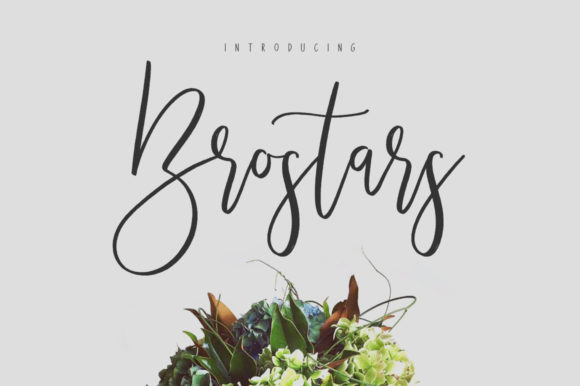
The Ultimate Design Game-Changer: Brostars Font
I’ll never forget the moment I stumbled upon the perfect font for a client’s branding project. I had been searching for hours, trying out different combinations, but nothing seemed quite right. That was until I discovered Brostars – a gorgeous duo font that instantly elevated my design to the next level. In this article, I’ll share my experience with Brostars, its incredible versatility, and provide a comprehensive guide on how to make the most of this stunning font.
An Honest Review of Brostars
What I Love About Brostars ✨
• ✅ Incredibly versatile: Brostars is a duo font that includes both a sans serif and script font, making it perfect for a wide range of designs.
• ✅ Beautifully crafted: The font is meticulously designed, with attention to detail and a clear focus on aesthetics.
• ✅ Easy to read: The sans serif font is clear and legible, while the script font adds a touch of elegance and sophistication.
• ✅ Perfect for branding: Brostars is ideal for creating logos, business cards, and other branding materials that require a professional yet creative look.
The Backstory Behind Brostars
Brostars was designed by a team of typographers who wanted to create a font that would be both versatile and beautiful. The font is inspired by classic sans serif and script fonts, with a modern twist. The designers aimed to create a font that would be perfect for branding, advertising, and creative projects.
Q: What is Brostars font?
A: Brostars is a duo font that includes both a sans serif and script font. It’s designed to be versatile and beautiful, making it perfect for a wide range of creative projects.
Q: Is Brostars suitable for body text?
A: While Brostars is primarily designed for headings and titles, it can be used for body text in certain contexts. However, it’s recommended to use a clear, legible font for body text to ensure readability.